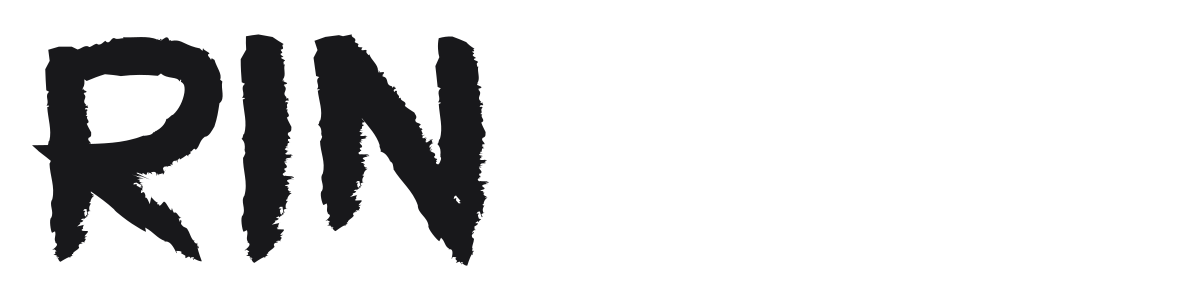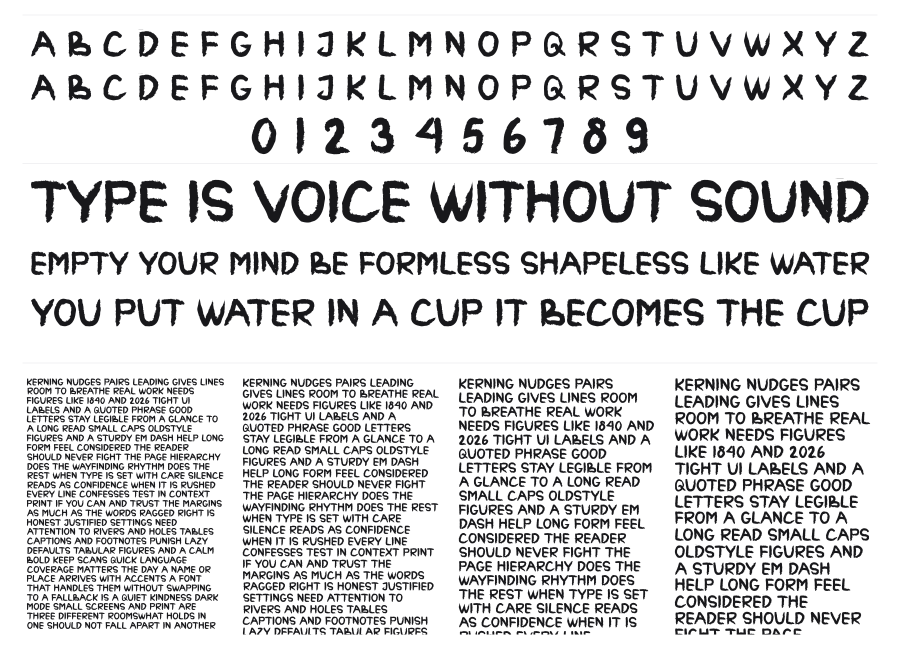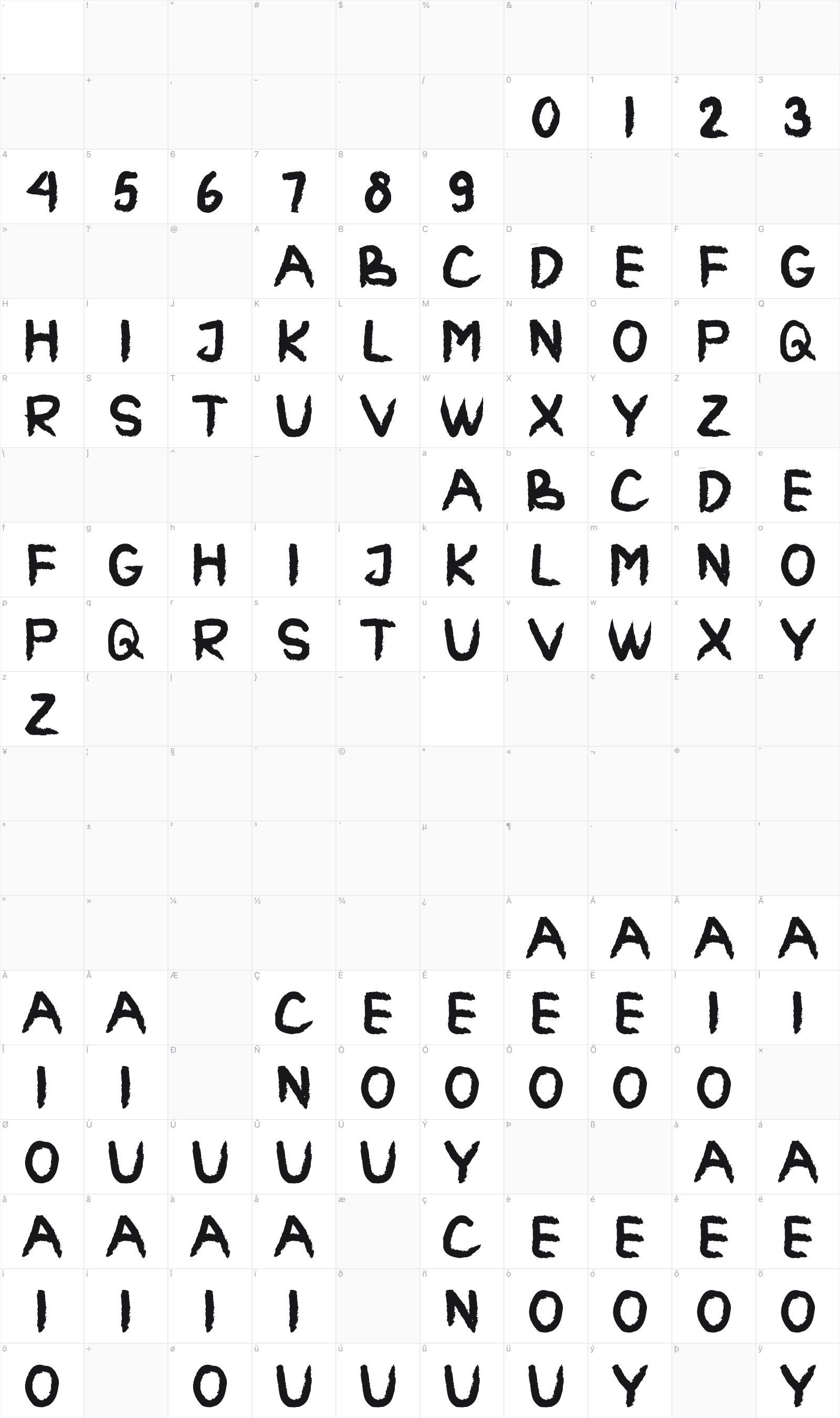
RIN
RIN is a bold distressed sans with rough, eroded edges that look like ink dragged across a coarse surface. The heavy weight and wide proportions keep it legible at headline sizes even as the texture pushes into chaos. Strong choice for anything that needs attitude without going full blackletter.